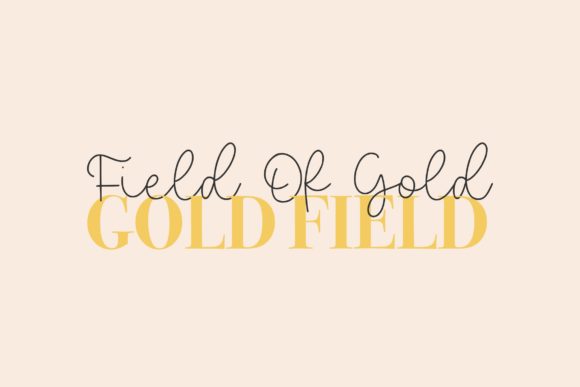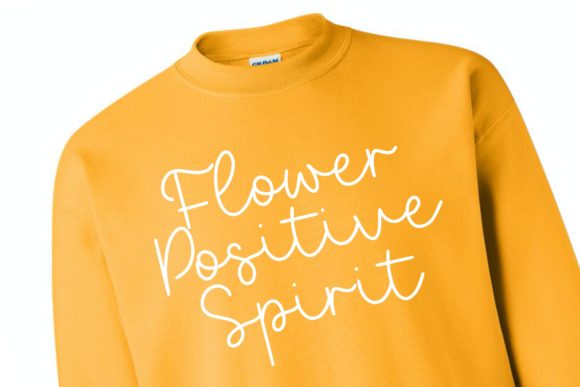
Bearline Font
db-ku.com - Script & Handwritten -- Bearline is a casual monoline script font. It maintains its classy calligraphic influences while feeling contemporary and fresh. This versatility will appeal to a wide range of crafty ideas, from letterheads and titles, to stationery.